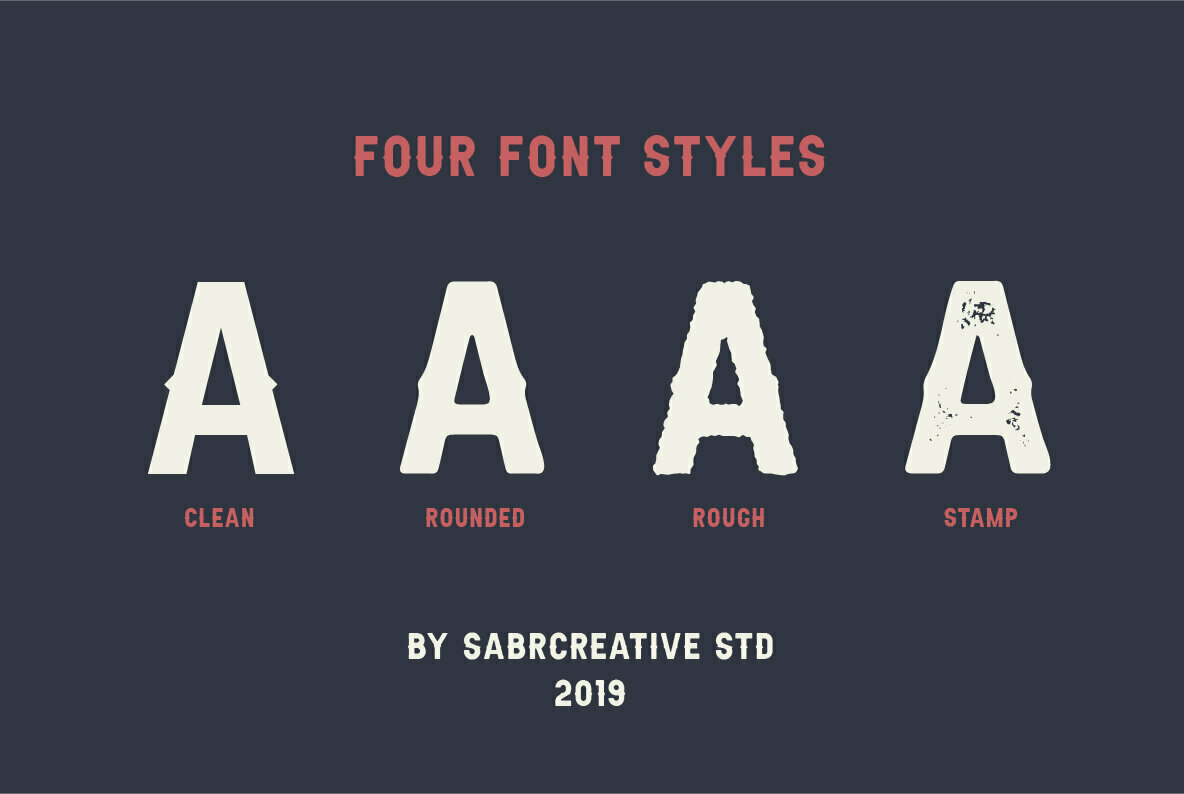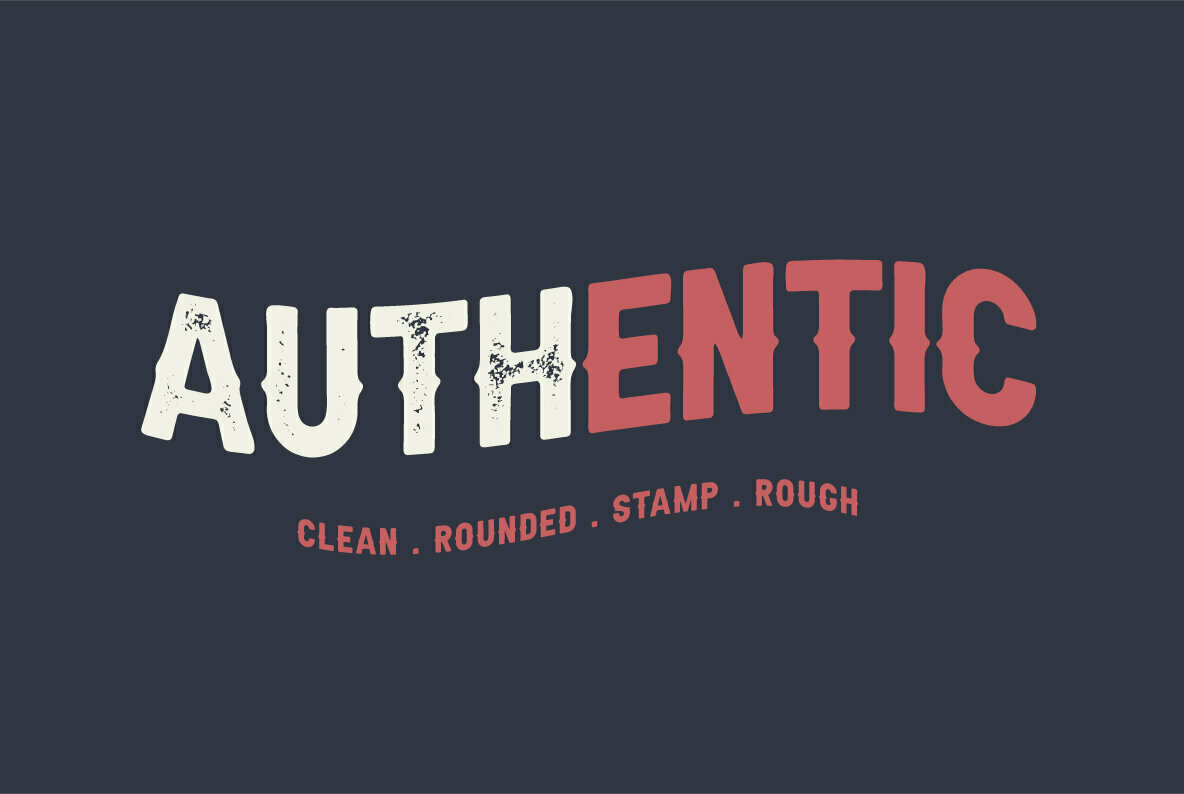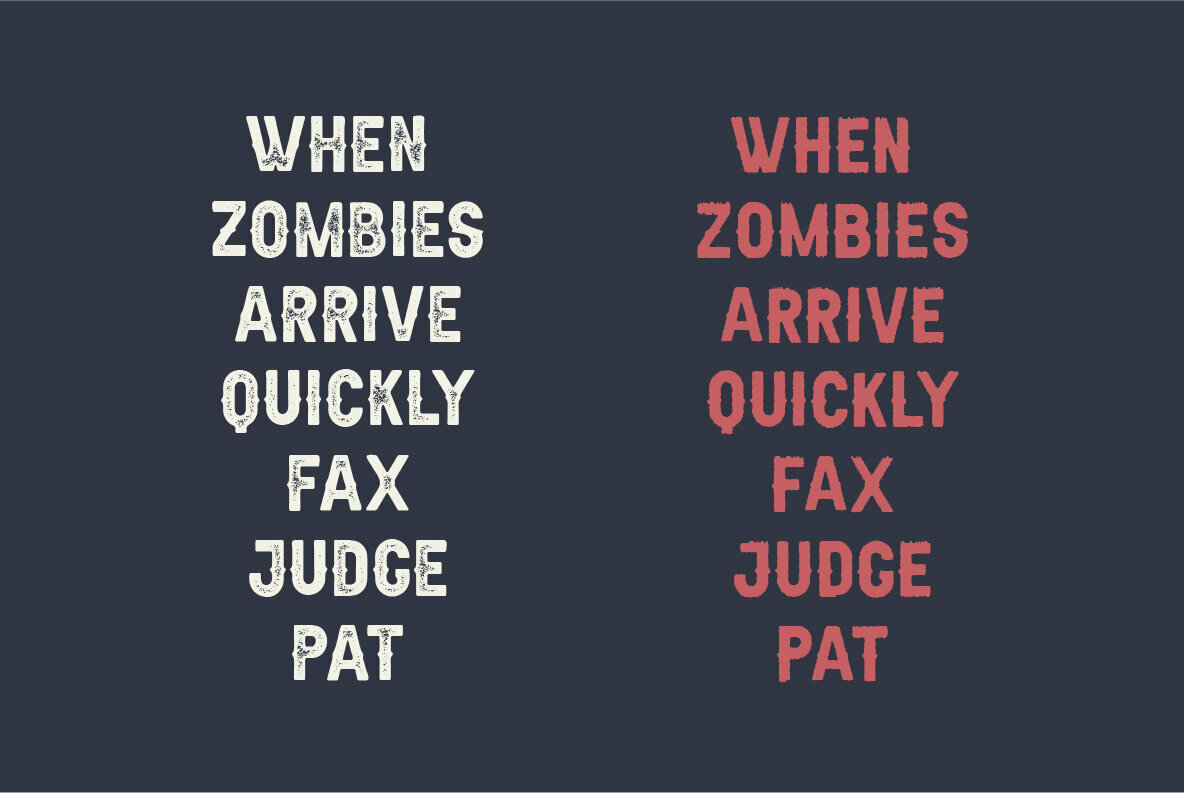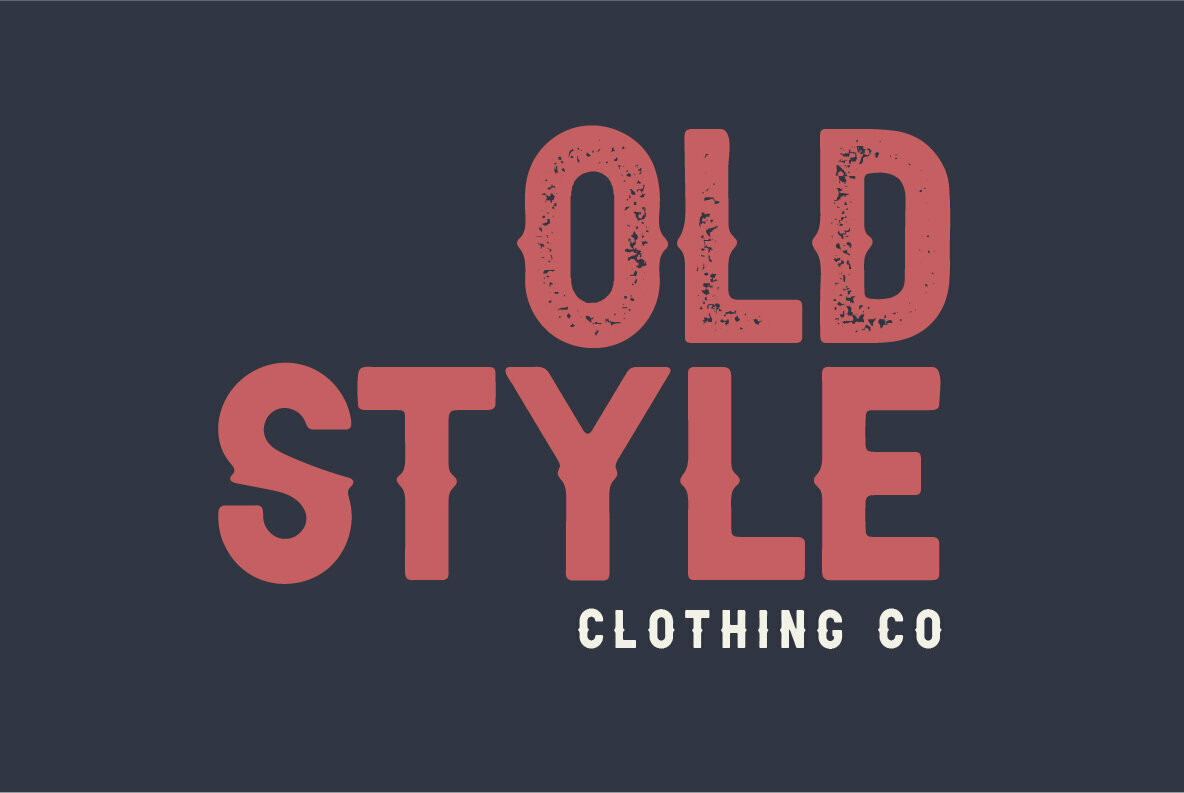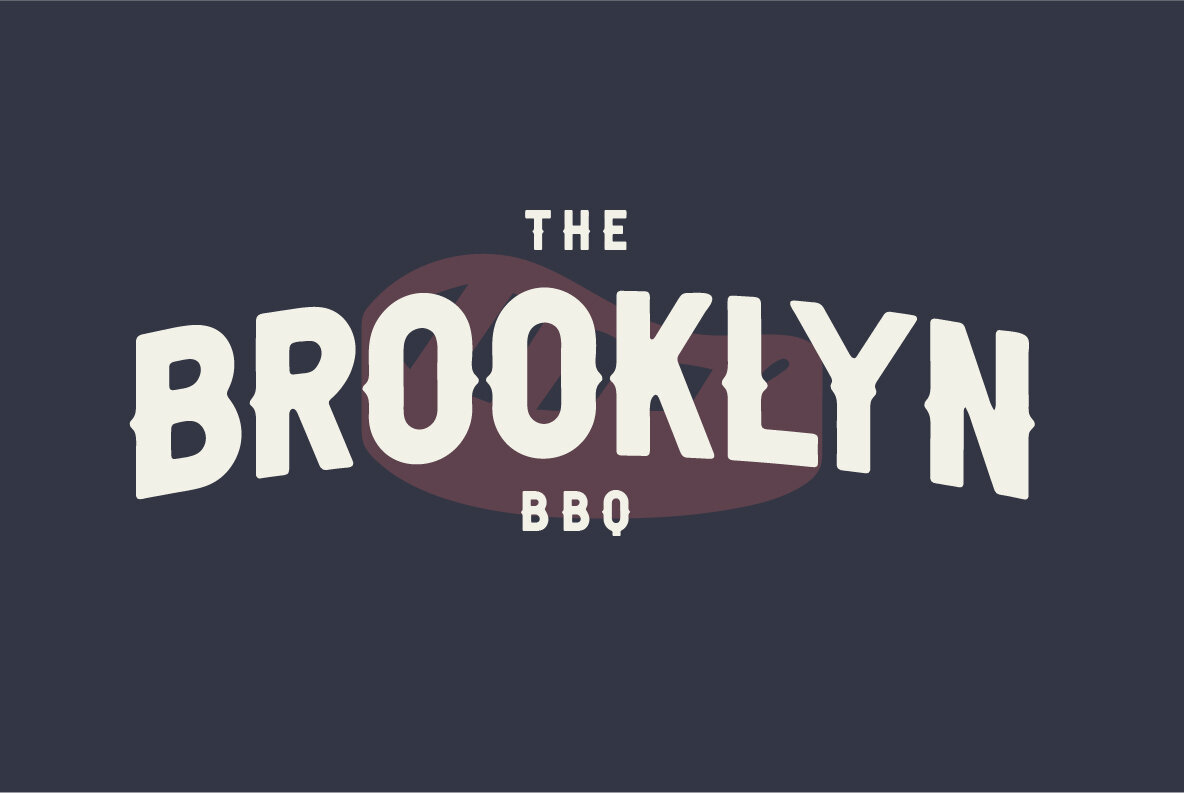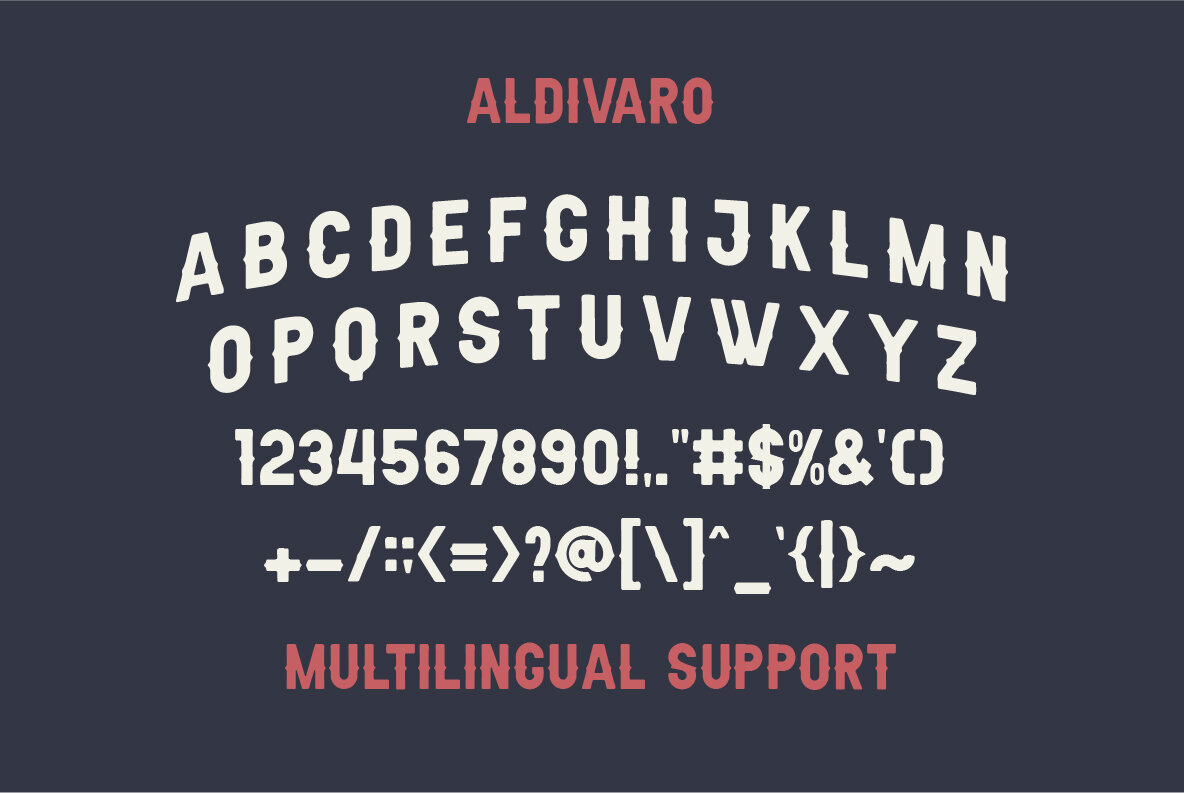
Aldivaro: A Bold Typeface for Cutting-Edge Designs
The Aldivaro Font Family from Sabrtype Studio is a robust collection that offers four distinct styles, each crafted to enhance your design repertoire. This versatile family features Aldivaro Regular, Rounded, Rough, and Stamp styles, collectively providing an extensive range that can suit any project.
• All Upper Case
• Numerals & Punctuations (OpenType Standard)
• Accented Multilingual Characters for Global Use
Aldivaro is perfect for graphic designers seeking a typeface with both a strong presence and adaptable styles. Whether you're working on branding, digital media, or print, this font family provides the flexibility you need to execute your vision.